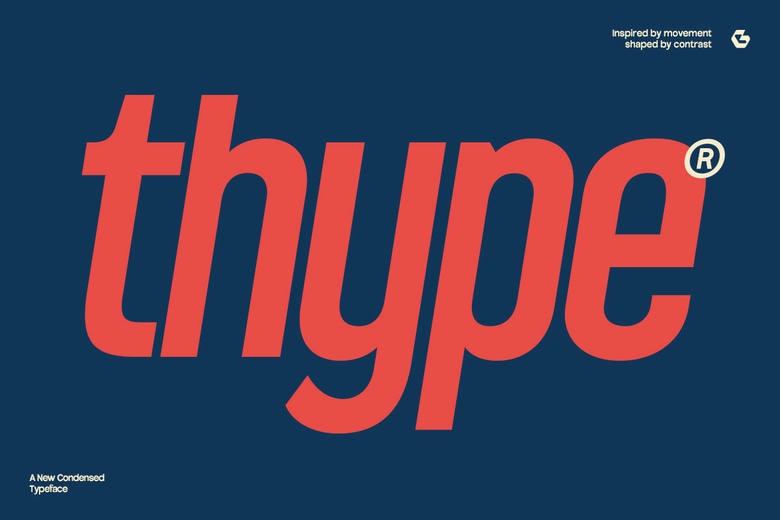
GC Thype Font
GC Thype is a modern condensed display sans serif typeface with a touch of modern minimalism along with impactful presence. It is meant to be used in headlines, in branding, posters, logos, packaging and editorial designs as well as provide a confident and memorable statement.
It has tall letterforms, dense space, and sharp terminal with clean geometrically modern design which enables it to have a unique and contemporary look made to apply to fashion, streetwear, technology and creative products. GC Thype provides a calm, striking design that provides clarity and fashion to any visual composition.